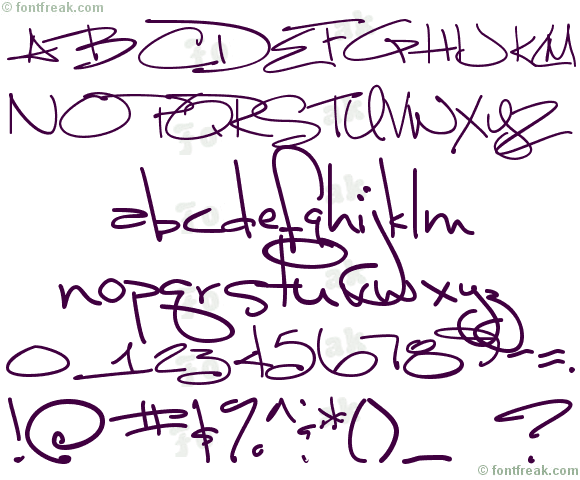
Luna Bar
About Luna Bar
Luna Bar, designed by Jennifer Dickert in 2001, is a captivating display font that combines a playful yet sophisticated style. With its unique handwritten appearance, this font exudes personality and charm, making it a fantastic choice for various creative projects. The strokes in Luna Bar are fluid and dynamic, featuring a moderate contrast that enhances readability while adding a whimsical flair. The spacing between characters is balanced, allowing for seamless integration into different design layouts. Decorative elements, such as the playful curves and loops, give the font a distinct character that stands out in any context.
This font is particularly well-suited for wedding invitations, where its elegance can evoke a romantic atmosphere. It also works beautifully for restaurant menus, helping to create an inviting and personalized experience for diners. Graphic designers might find Luna Bar ideal for branding projects, as its unique style can effectively convey a brand's identity. Additionally, content creators looking to add a touch of creativity to social media graphics or blog headers will appreciate the font's versatility and charm.
What makes Luna Bar truly stand out is its ability to blend playfulness with sophistication, making it suitable for both formal and informal applications. The design invites creativity and inspires users to think outside the box, ensuring that any project featuring this font will leave a lasting impression. For those interested, Luna Bar font free download is available, allowing you to incorporate this enchanting typeface into your next design endeavor.